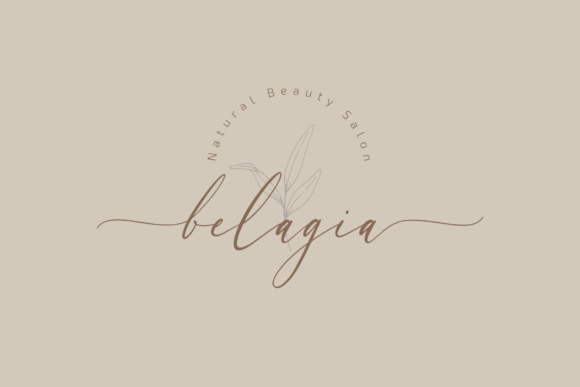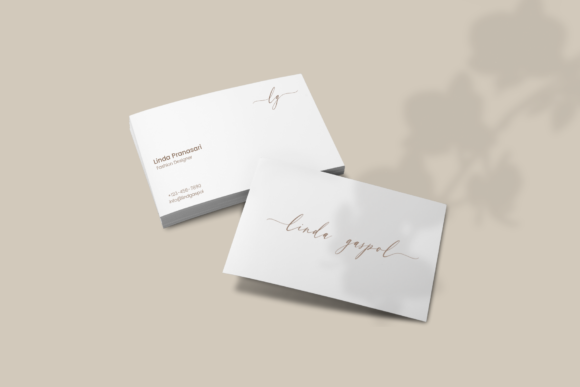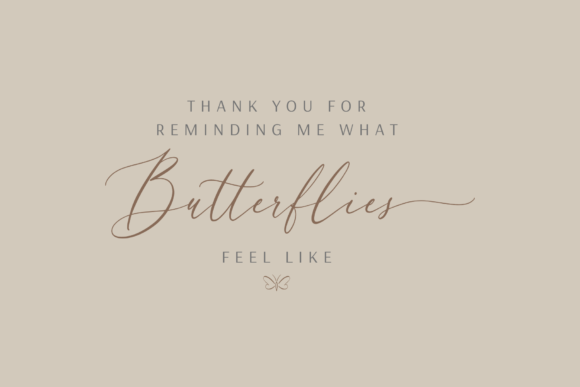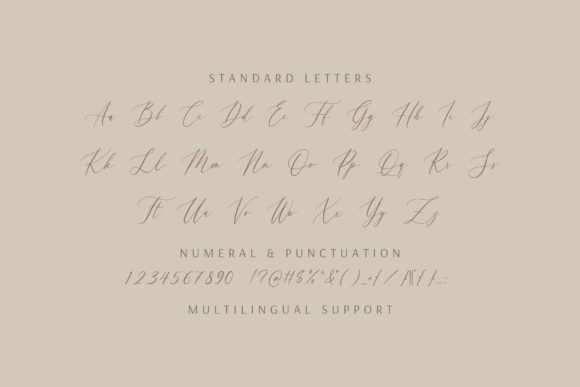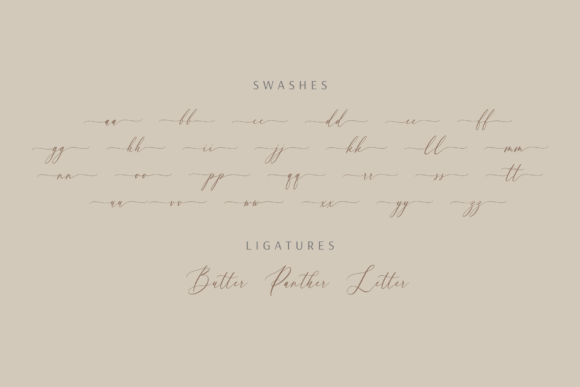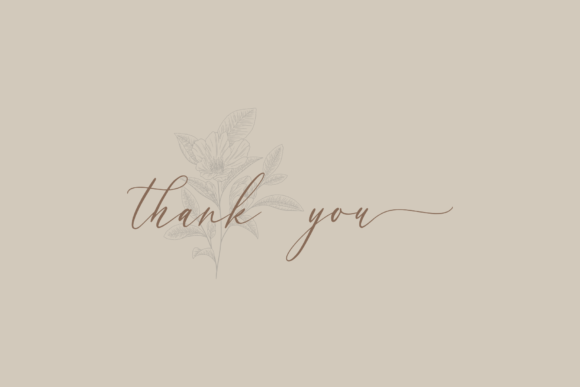
Begthen Font: Elevate Your Designs with Elegance and Sophistication
In the world of typography, a beautiful script font can make all the difference in elevating your designs to the next level. If you’re a designer, crafter, or simply someone who appreciates the art of beautiful writing, then you’re in luck. Introducing Begthen Font, a stunning script font that combines timeless style with authentic calligraphy, giving your projects a touch of elegance and sophistication.
What Makes Begthen Font Special?
Begthen Font is carefully crafted with attention to detail, ensuring that every letter, swash, and glyph is a masterpiece. This gorgeous font features a unique blend of classic and modern elements, making it perfect for a wide range of design applications, from wedding invitations and branding materials to digital content and craft projects.
One of the standout features of Begthen Font is its PUA (Private Use Area) encoding. This means that you can easily access all the glyphs and swashes, giving you the creative freedom to experiment with different styles and combinations. Whether you’re looking to add a touch of whimsy or a dash of drama to your designs, Begthen Font has got you covered.
Key Features of Begthen Font
• Beautiful Script Font: Begthen Font is a gorgeous script font that exudes elegance and sophistication.
• PUA Encoded: Easily access all glyphs and swashes with PUA encoding, giving you maximum creative flexibility.
• Timeless Style: This font combines classic and modern elements, ensuring that your designs look stylish and contemporary.
• Authentic Calligraphy: Every letter and swash is carefully crafted to give your designs an authentic, hand-crafted feel.
Begthen Font is an excellent choice for designers and crafters looking to add a touch of elegance to their projects. Whether you’re working on:
• Wedding Invitations: Create beautiful, bespoke wedding invitations that set the tone for the big day.
• Branding Materials: Elevate your brand with a sophisticated font that reflects your values and personality.
• Digital Content: Add a touch of elegance to your blog posts, social media graphics, and email newsletters.
• Craft Projects: Use Begthen Font to create stunning handmade cards, gift tags, and other paper crafts.
• Experiment with Swashes: Use the PUA-encoded glyphs and swashes to add a touch of personality to your designs.
Begthen Font is a beautiful script font that offers a unique combination of timeless style and authentic calligraphy. With its PUA encoding and gorgeous glyphs and swashes, this font is perfect for designers and crafters looking to elevate their projects with elegance and sophistication. Whether you’re working on wedding invitations, branding materials, digital content, or craft projects, Begthen Font is sure to become your go-to font for all your design needs.